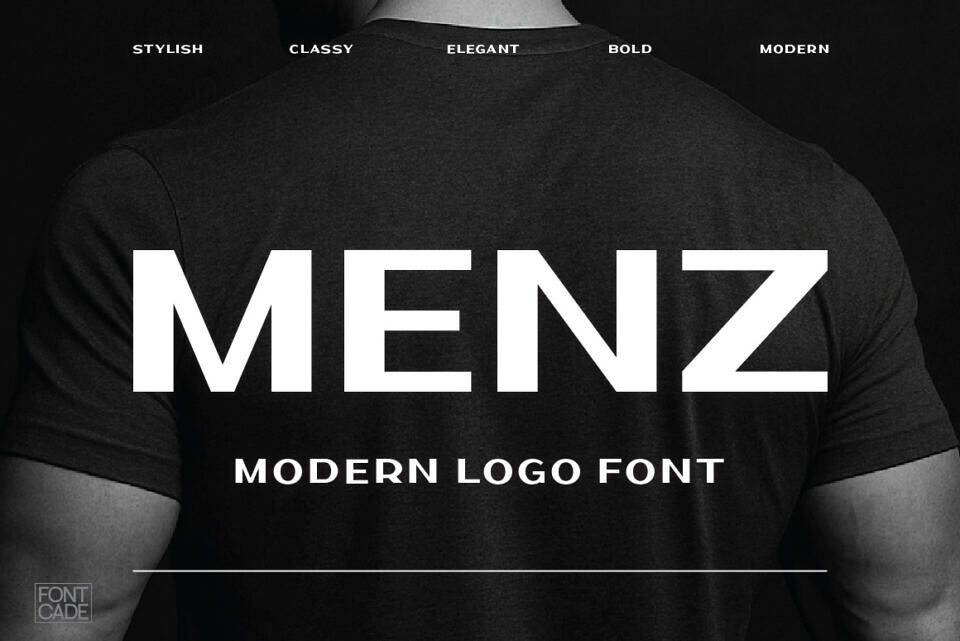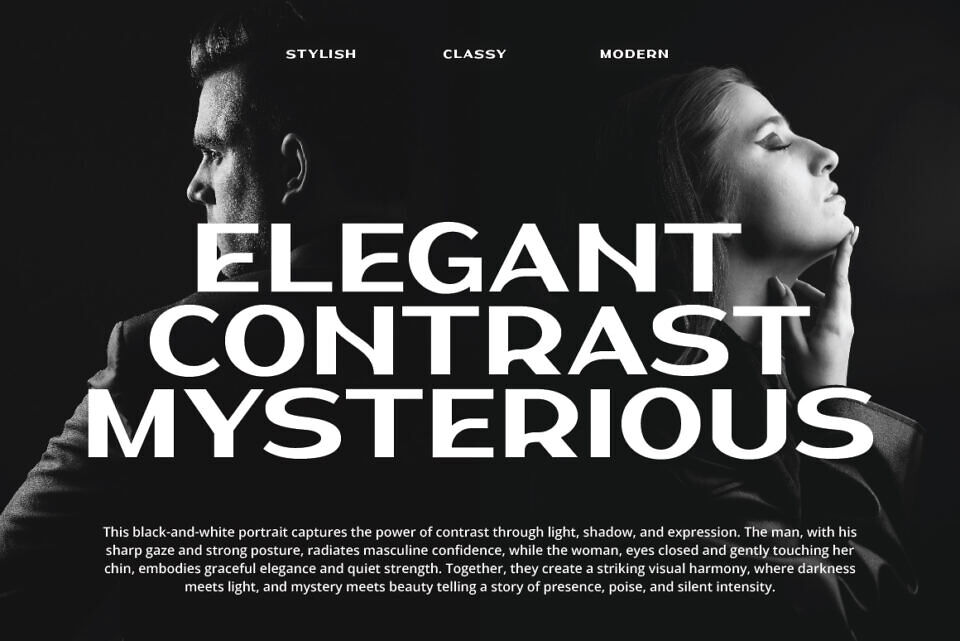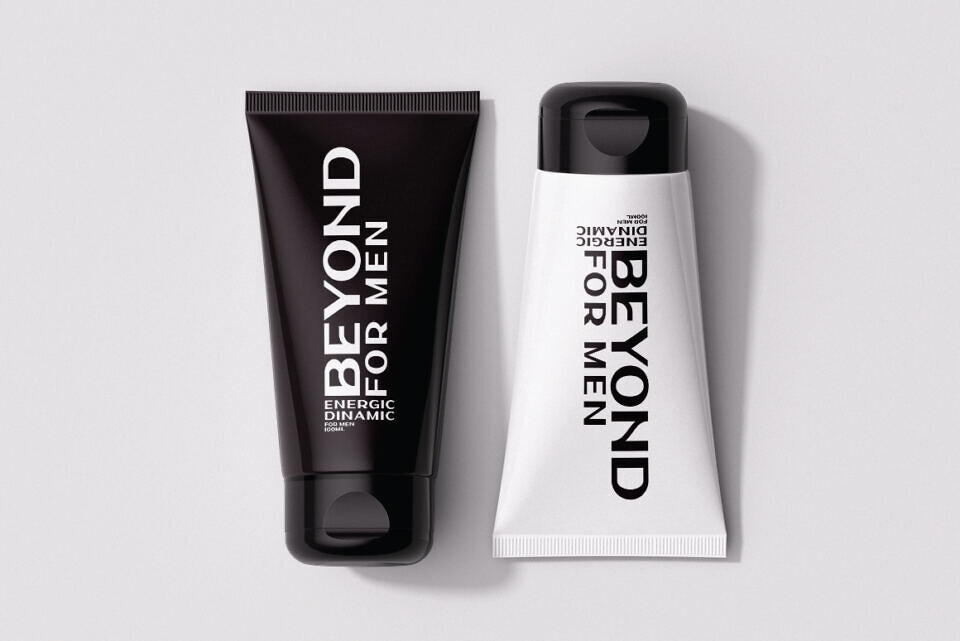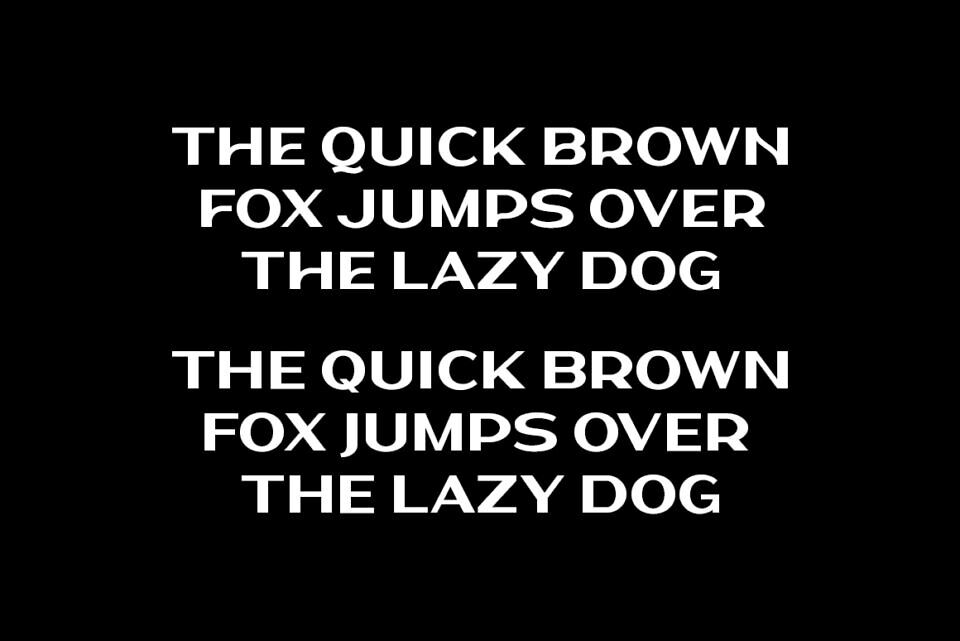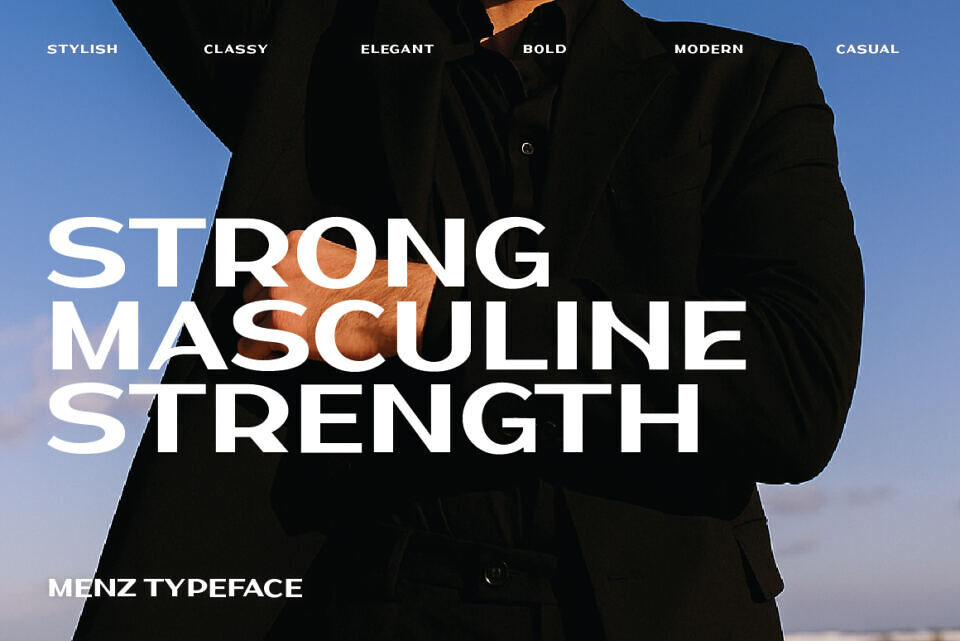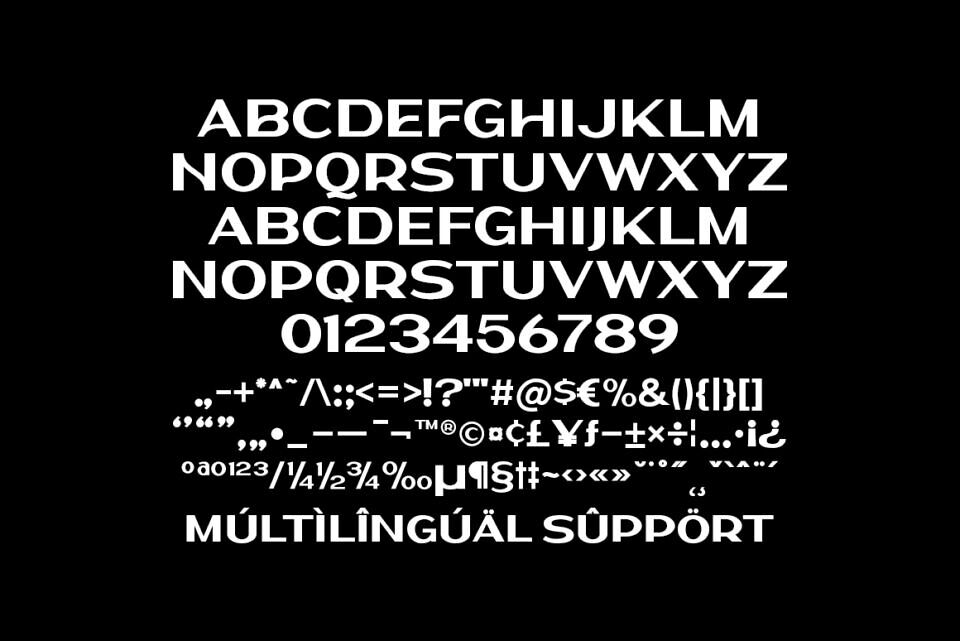
Menz Font by Fontcade is a bold, geometric all-caps display typeface designed for impactful headlines, logos, and modern branding. Its sharp angles and clean lines give it a futuristic, tech-inspired aesthetic, ideal for digital and creative industries.
The font includes uppercase letters, numbers, punctuation, and multilingual support. It comes in TTF, OTF, and WOFF formats, and is fully PUA-encoded for easy access to all characters.